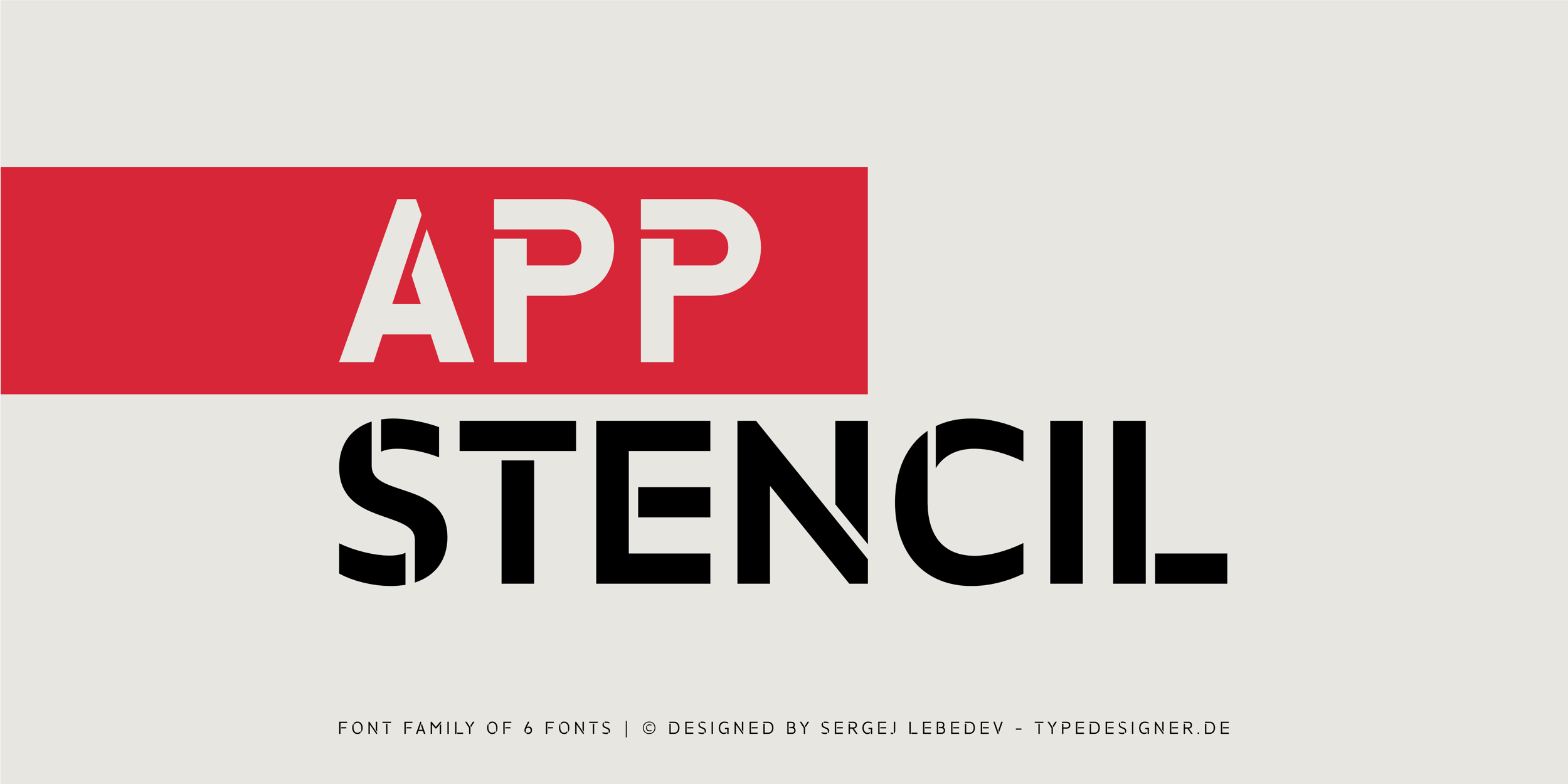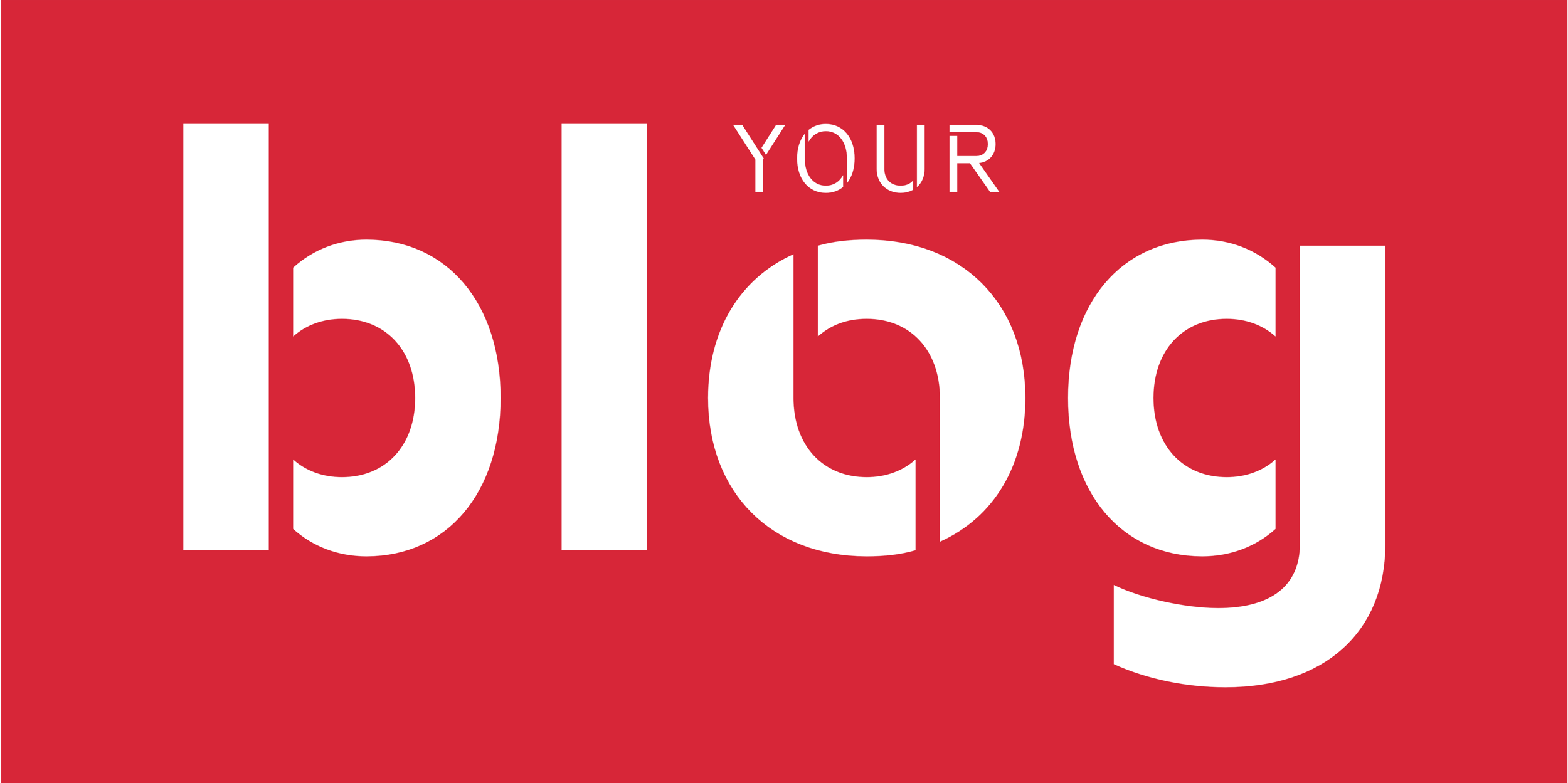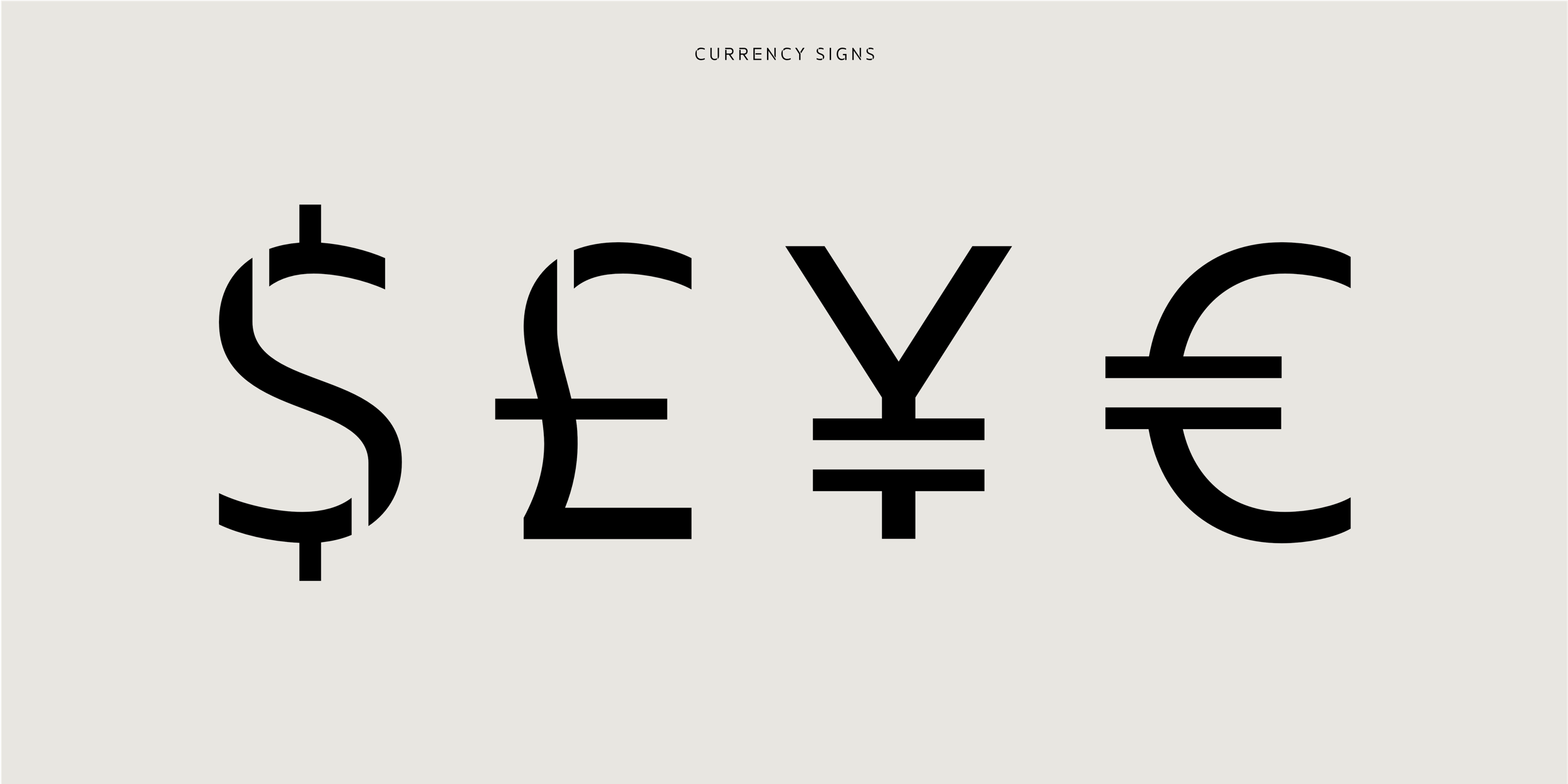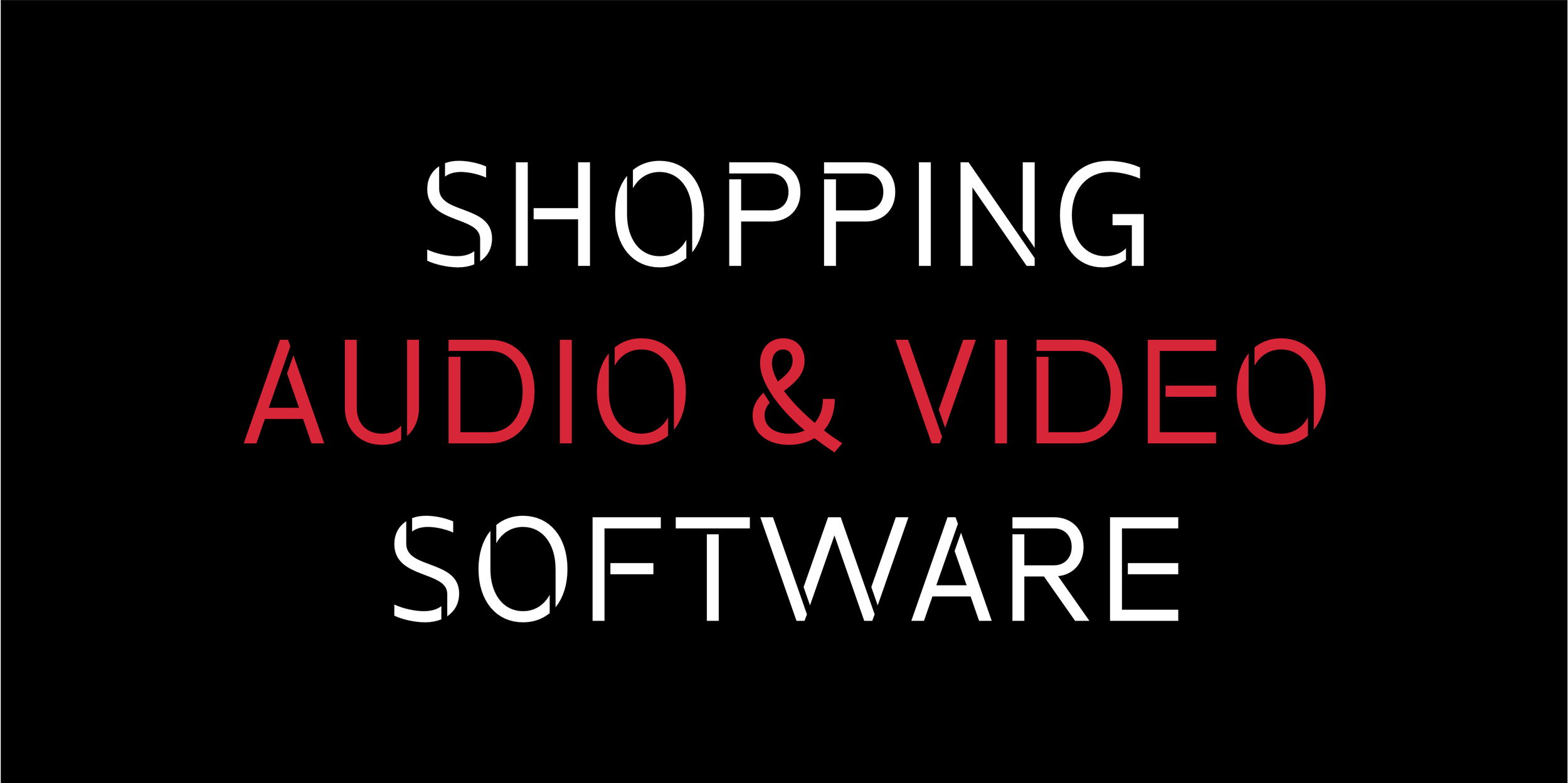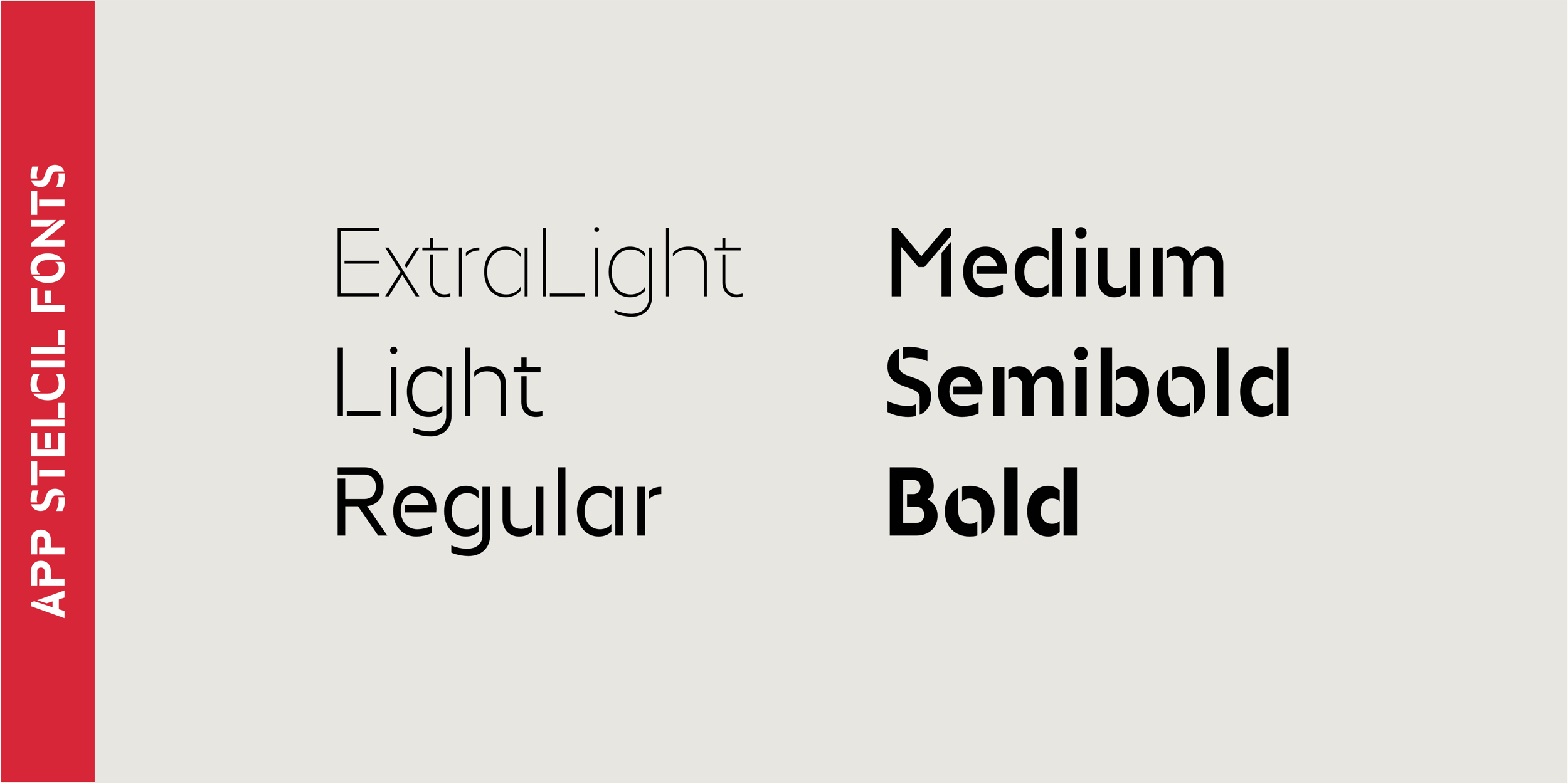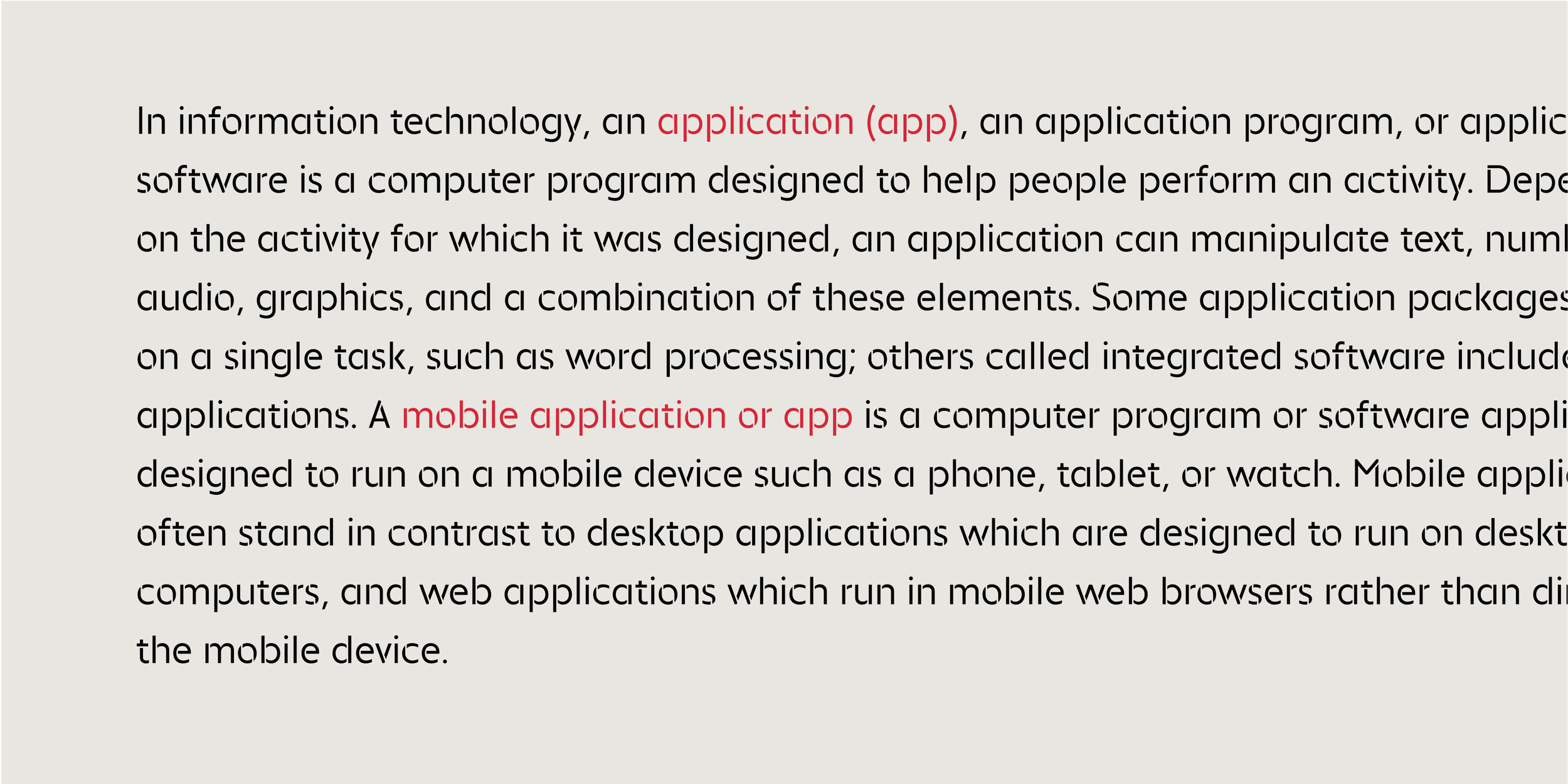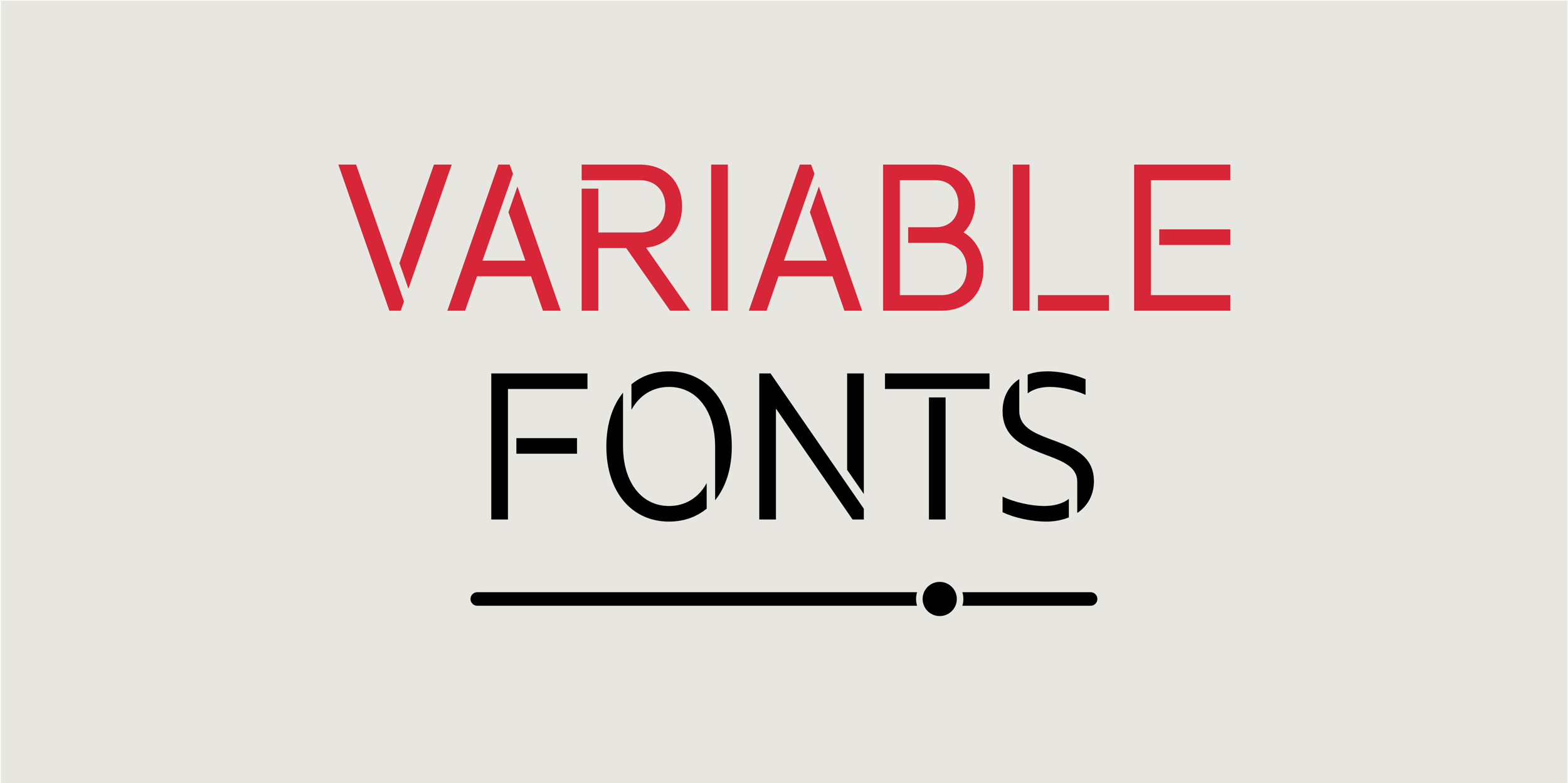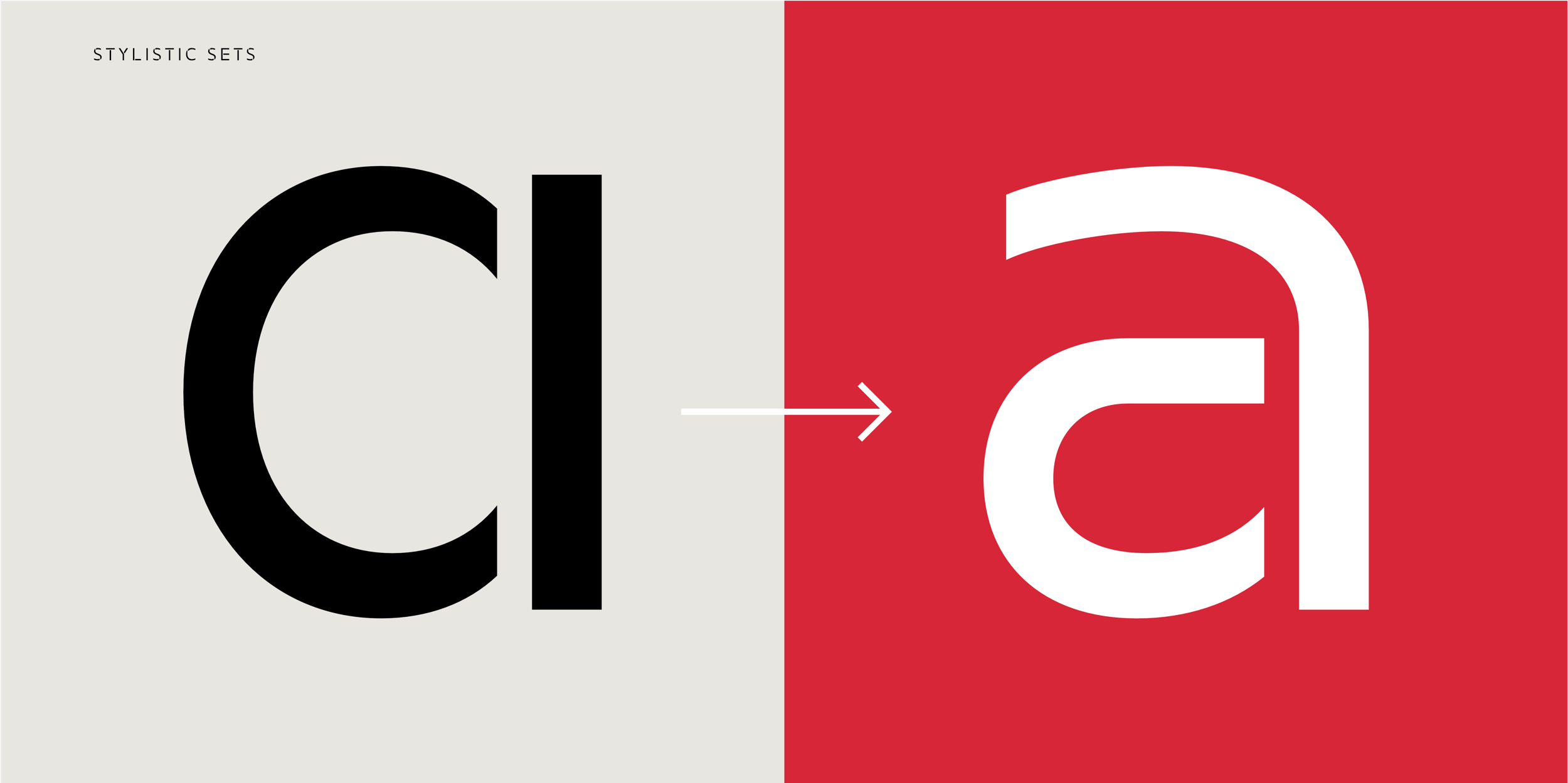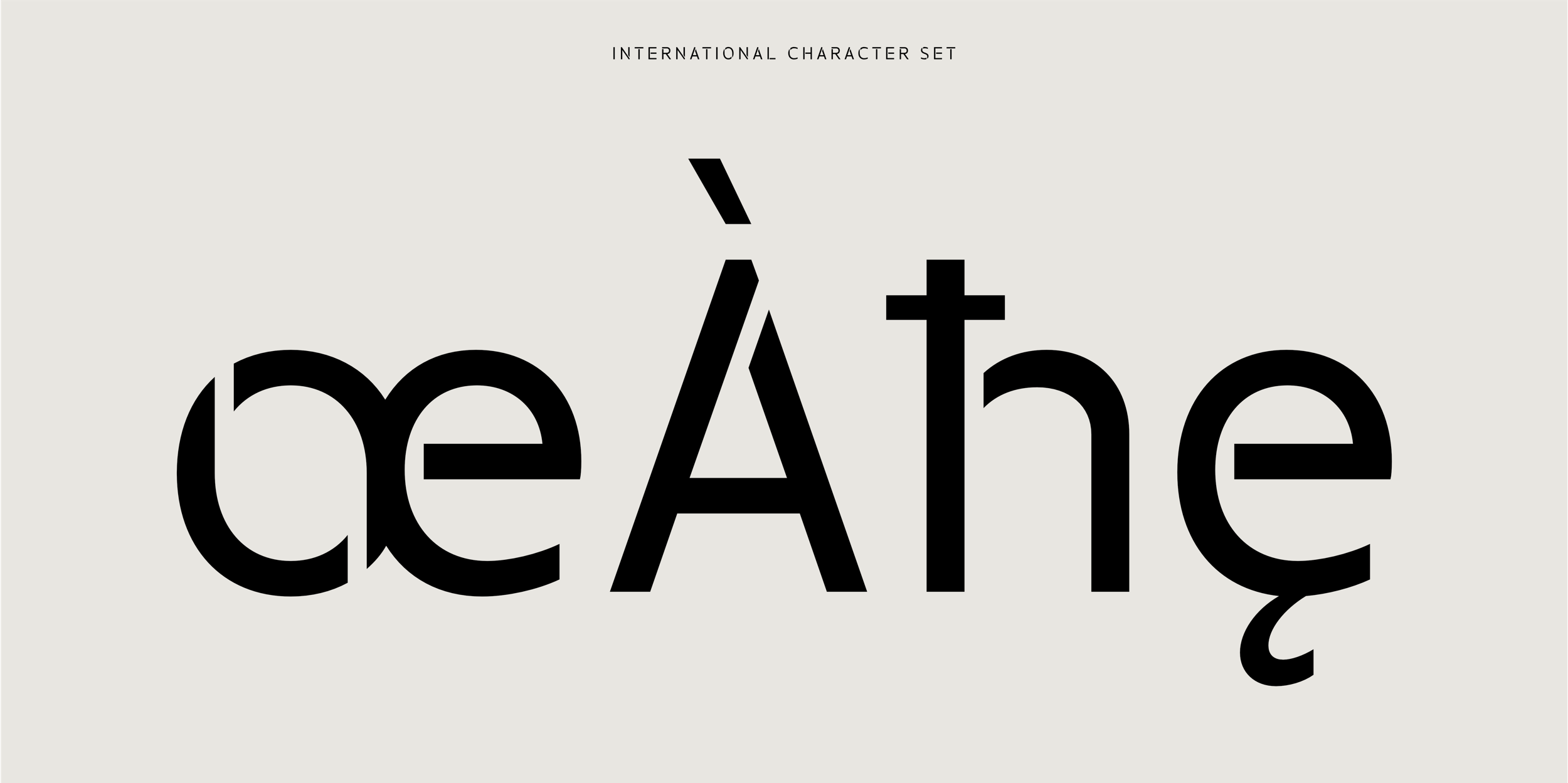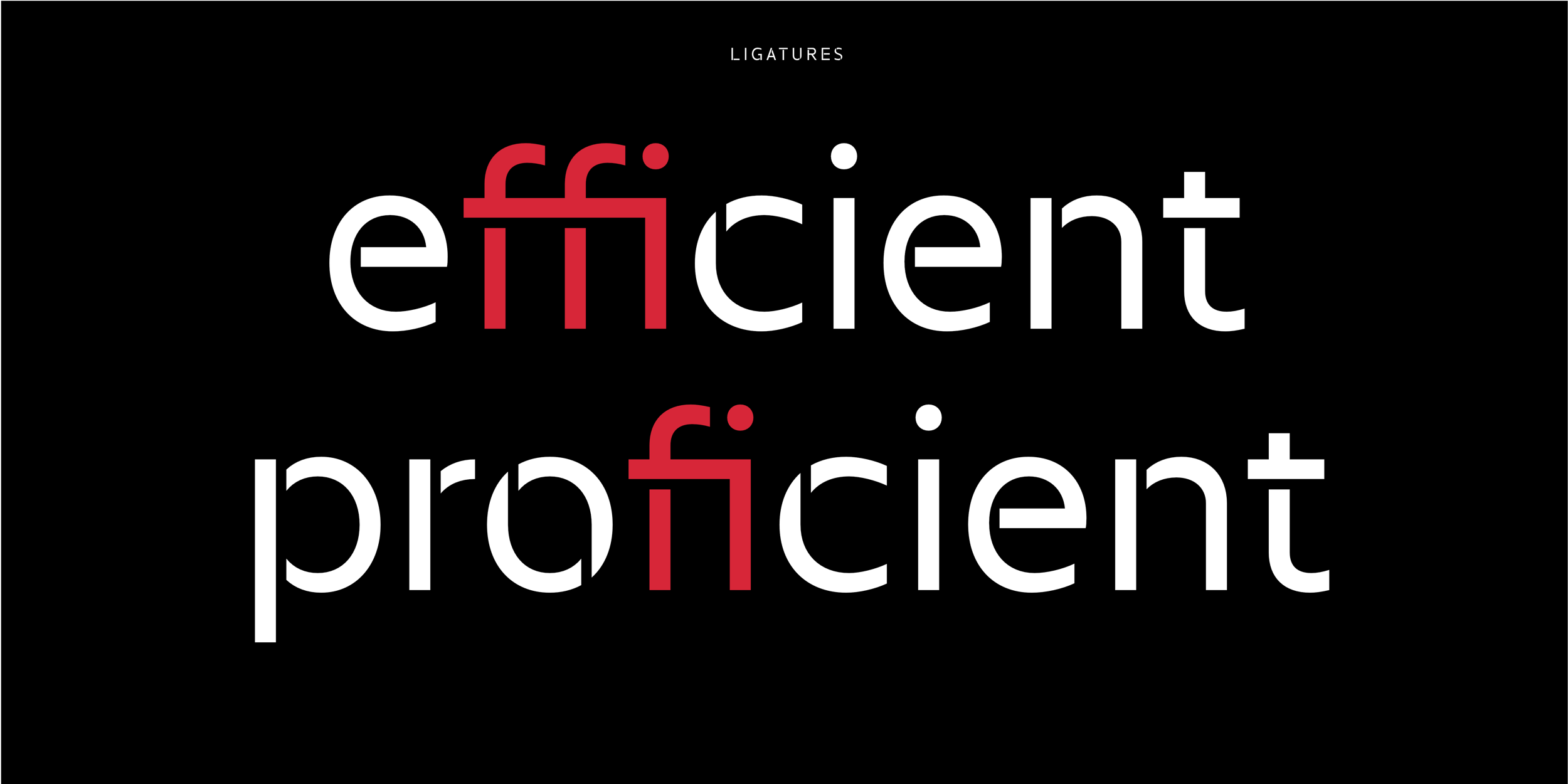
App Stencil - Typeface
App Stencil is a versatile font family comprising six styles and a variable version. Designed with a strong focus on legibility and technical precision, it’s a modern, well-structured stencil typeface. The typeface’s unique character is defined by its distinctive stencil bridges. Its excellent readability makes it ideal for use in mobile apps and user interfaces. Whether used in high-quality print layouts or on responsive websites, App Stencil impresses with its clear, contemporary design and functionality. Thanks to its balanced proportions and precise details, it is well-suited to logo and brand development, as well as editorial and graphic design. Extensive OpenType features enable precise microtypography and optimisation for smartphones ensures seamless integration into apps. App Stencil is a typeface that combines urban character and functionality perfectly.
The App Stencil typeface supports the following Latin-based languages:
Albanian, Aragonese, Aromanian, Arpitan, Bashkir (Latin), Basque, Belarusian (Latin), Bosnian, Breton, Catalan, Colognian, Cornish, Corsican, Crimean Turkish, Crioulo (Upper Guinea), Croatian, Czech, Danish, Dutch, English, Esperanto, Estonian, Extremaduran, Faroese, Finnish, Finnish (Kven), French, Friulian, Gagauz, Galician, Gallo, German, Gheg Albanian, Hungarian, Icelandic, Inari Sami, Indonesian, Interlingua, Irish, Italian, Jèrriais (Latin), Kalaallisut, Karelian, Kashubian, Ladin, Latgalian, Latin, Latvian, Ligurian, Lithuanian, Lombard, Low German, Lower Sorbian, Lule Sami, Luxembourgish, Maltese, Manx, Middle High German, Mirandese, Neapolitan, Northern Frisian, Northern Sami, Norwegian, Norwegian Bokmål, Norwegian Nynorsk, Occitan, Old English, Old French, Old High German, Old Irish, Old Provençal, Old Welsh (Latin), Oroqen, Picard, Piedmontese, Polish, Portuguese, Romagnol, Romani (Balkan), Romanian, Romansh, Romany, Sardinian, Sassarese Sardinian, Saterland Frisian, Scots, Scottish Gaelic, Serbian (Latin), Silesian, Slovak, Slovenian, Southern Sami, Spanish, Swedish, Swiss German, Tatar (Latin), Turkish, Upper Sorbian, Venetian, Veps, Võro, Walloon, Walser, Welsh, Western Frisian
6 Fonts: ExtraLight, Light, Regular, Medium, SemiBold, Bold.